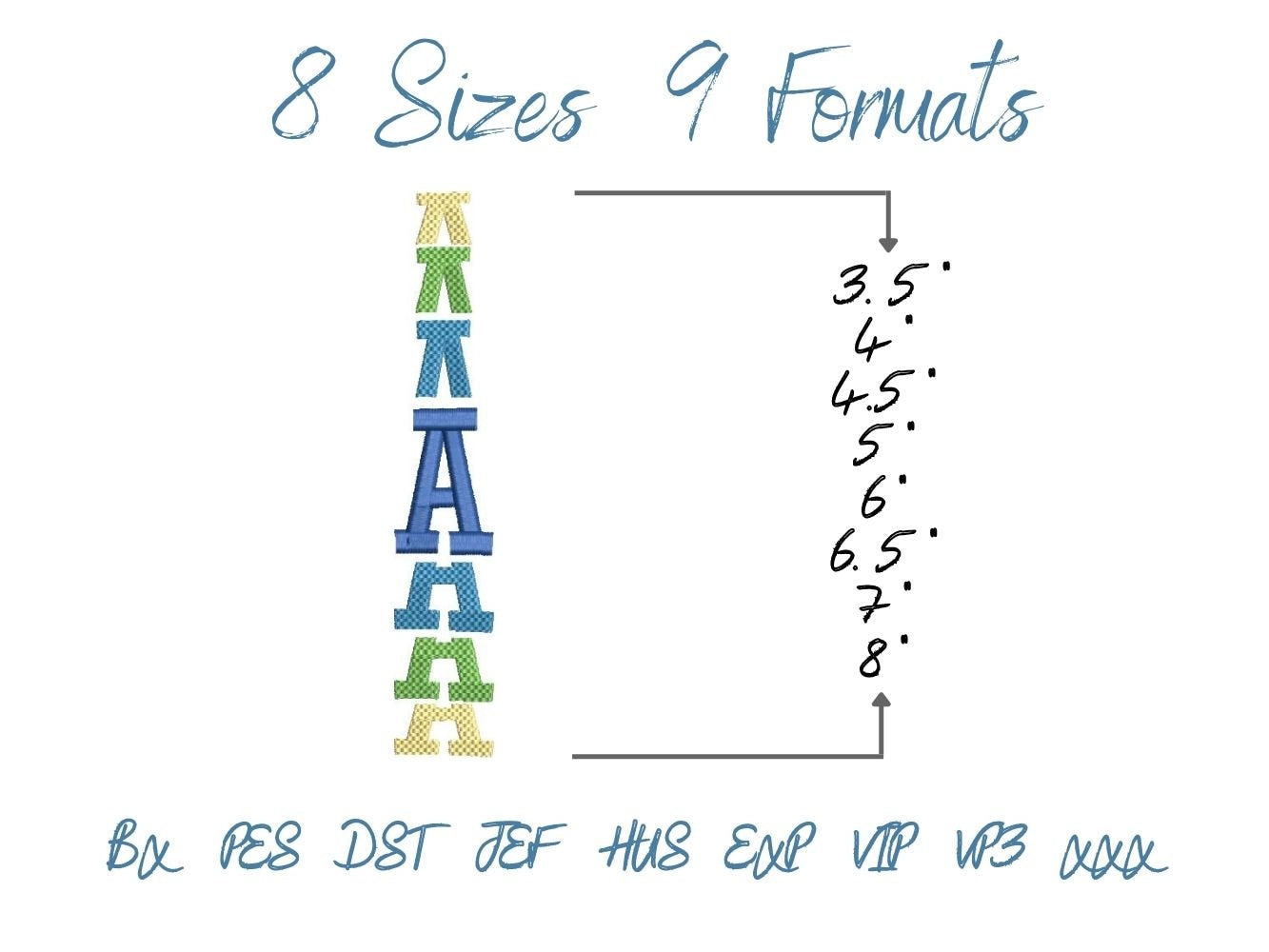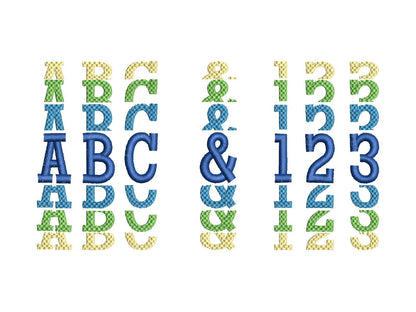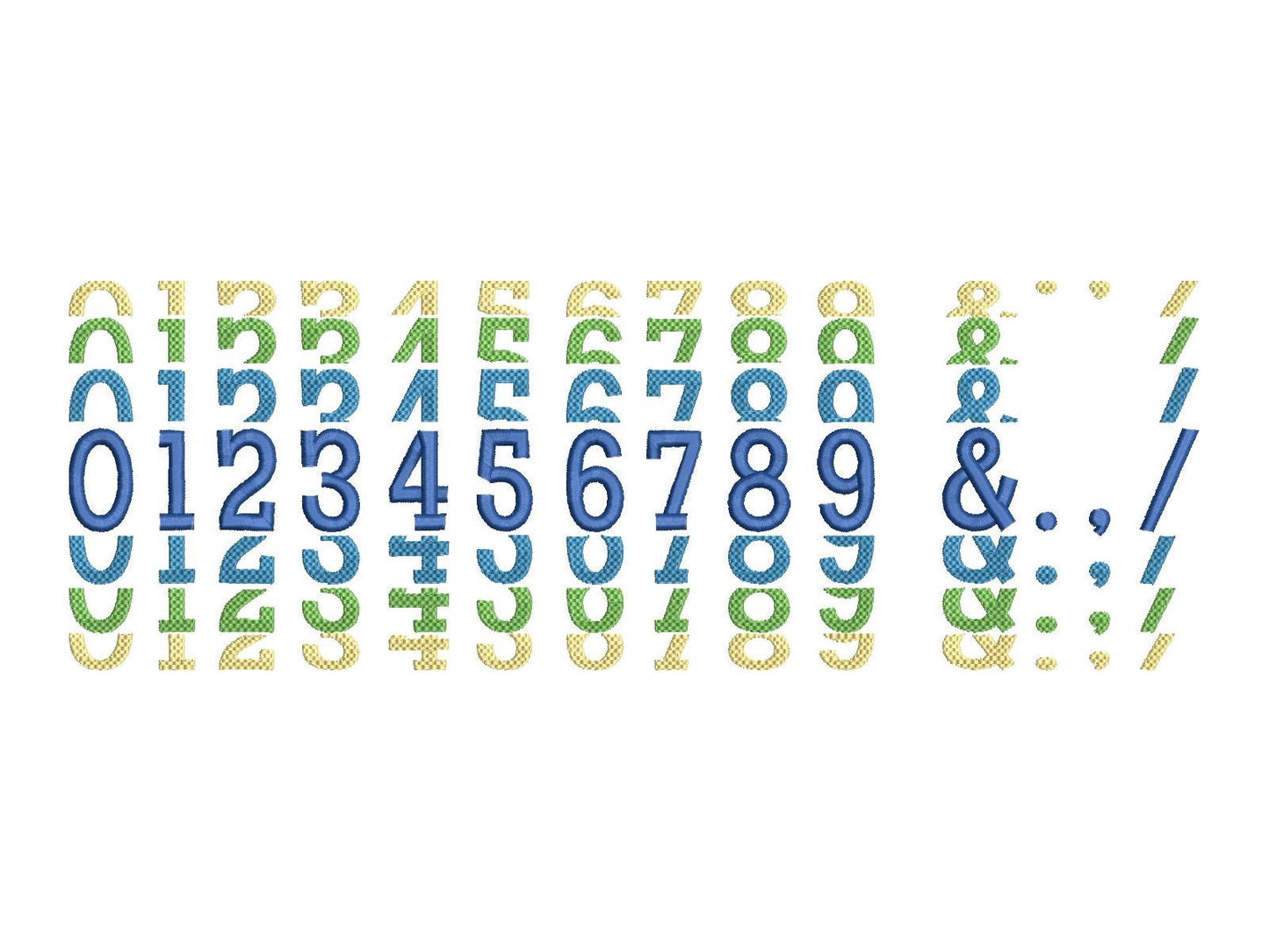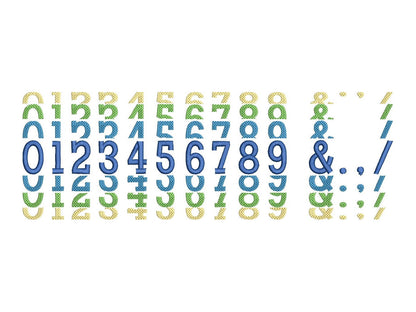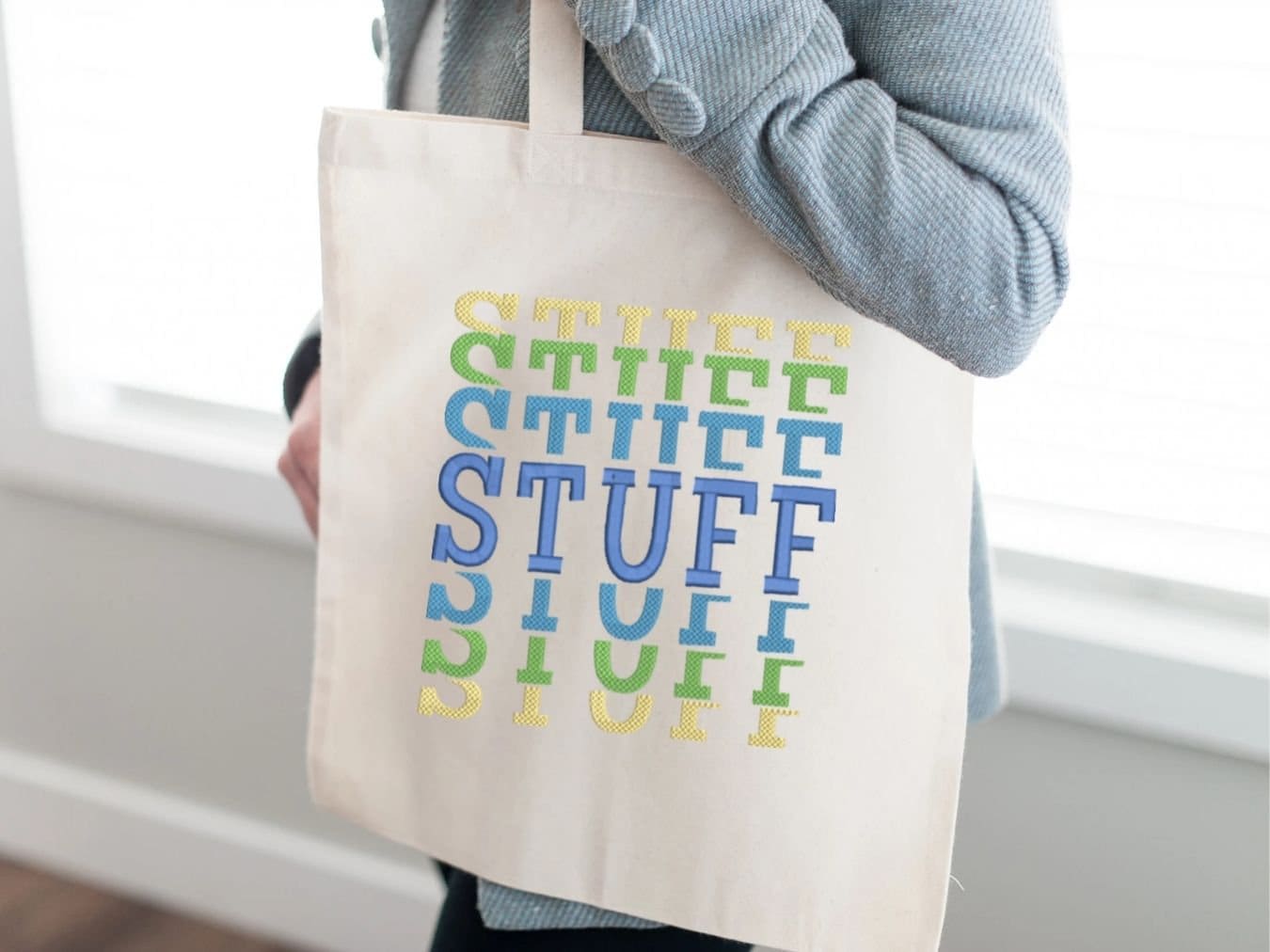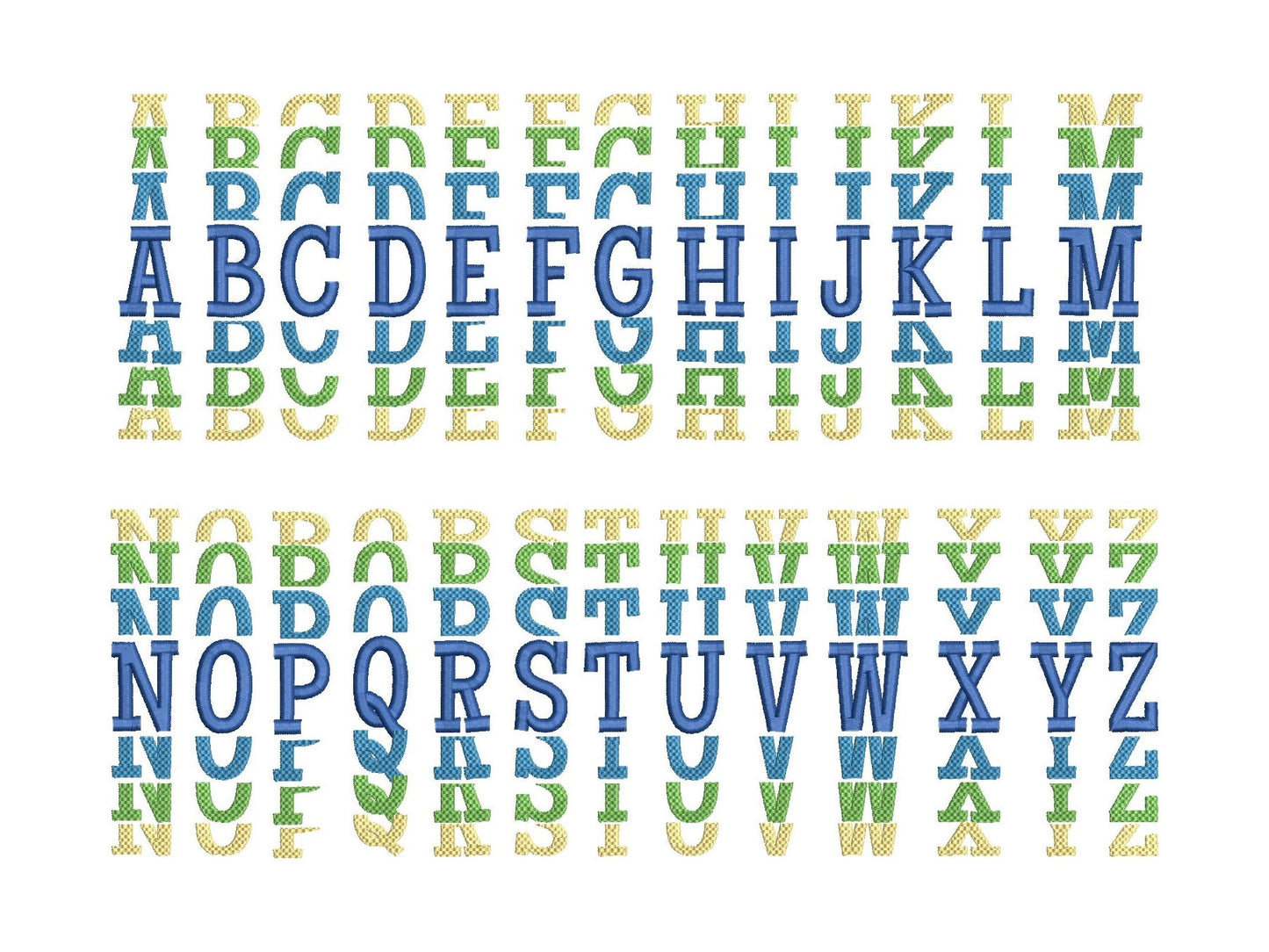
Trendy Stacked Font
Uppercase A to Z, numbers 0 to 9 and & . , / in eight sizes: 3.5, 4, 4.5, 5, 6, 6.5, 7 and 8 inches.
- Stacked satin and fill font
- Uppercase A-Z, numbers 0-9, & . , /
- 8 sizes, 3.5 to 8 in